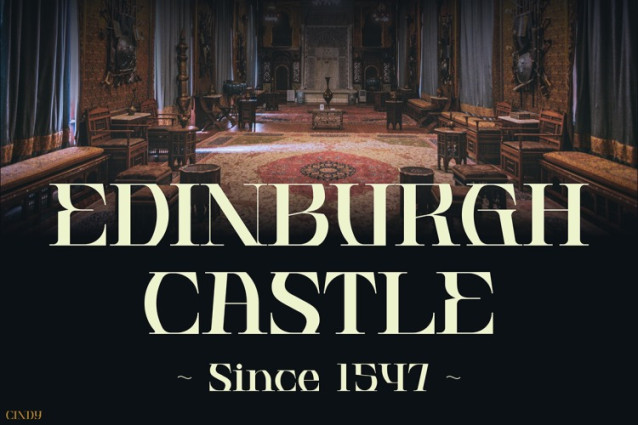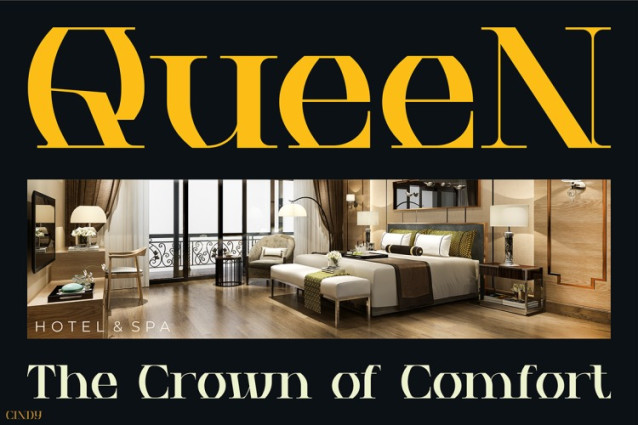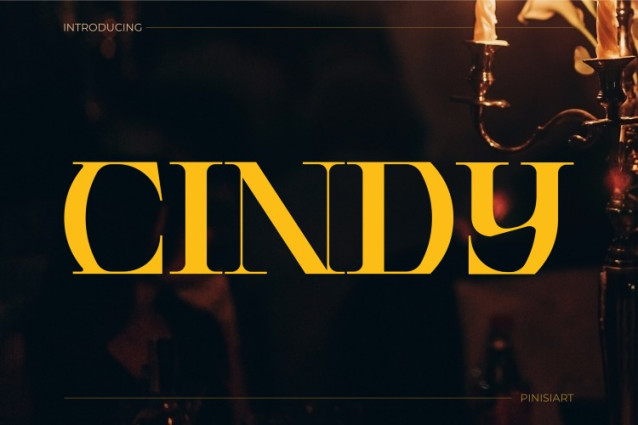
Cindy Font
Cindy Font, instantly brings character and charm to your design projects. This elegant serif typeface merges vintage appeal with a modern twist, offering a unique blend of style and readability. As a result, every word you write with CINDY feels intentional, bold, and beautiful.
Its sharp serifs, balanced strokes, and subtle curves create a timeless look that works well in various settings. For instance, it shines in wedding invitations, luxury branding, historical editorials, and Instagram graphics. Moreover, the font’s uppercase letters provide dramatic flair, while the lowercase set adds warmth and softness to longer texts. Because of this versatility, CINDY adapts effortlessly across digital and print formats.
In addition to its stunning aesthetic, the font was built for performance. Every glyph is crafted for harmony and clarity, even at smaller sizes. Therefore, it’s not just a decorative font—it’s a functional design tool. Whether you’re styling a product label, designing a hotel brochure, or creating cinematic social media visuals, CINDY adds elegance to every element.